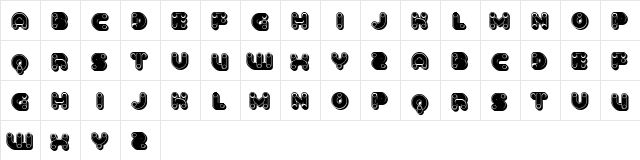
Baked Snails 3D Rustique Regular
Design Context for Baked Snails 3D Rustique Typeface
Baked Snails 3D Rustique is a composed and adaptable typeface that performs quietly and consistently across a wide range of design contexts.